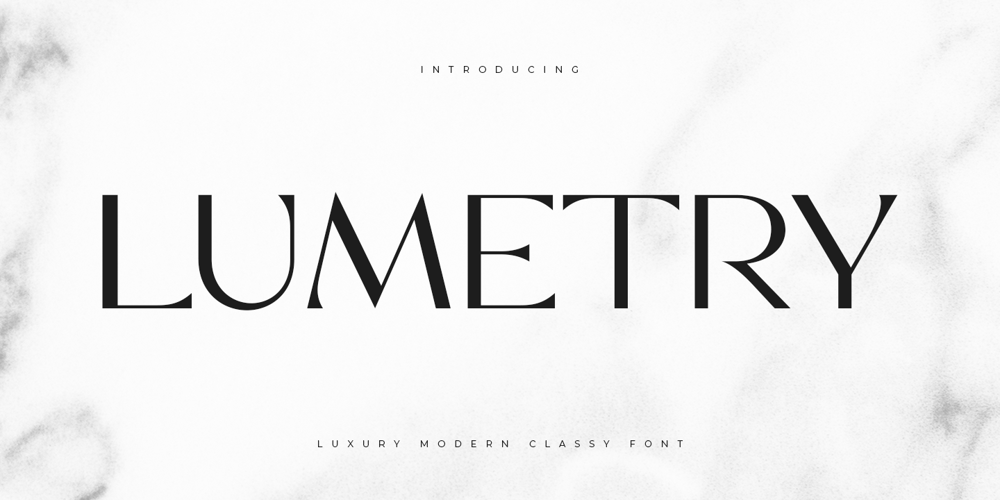
Lumetry Font Family was designed by Zamroni Hamzah and published by Sensatype Studio. Lumetry contains 1 styles and family package options. A Modern Classy Luxury Font that we created special for Luxury and Fashion branding needs, with extra characters alternate in unique shape will be ready to add value of your brand. Top Luxury Modern Classy Font ready with: Any options to get creative variations (combination of Any Alternates) Preview as a inspirations that you can do with Top Luxury font Ready with Lowercase and Uppercase characters Wish you enjoy our font. ๐